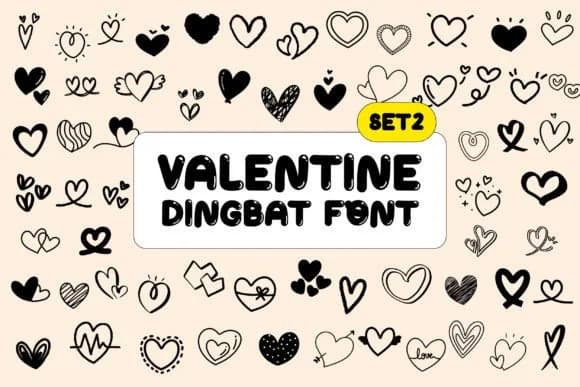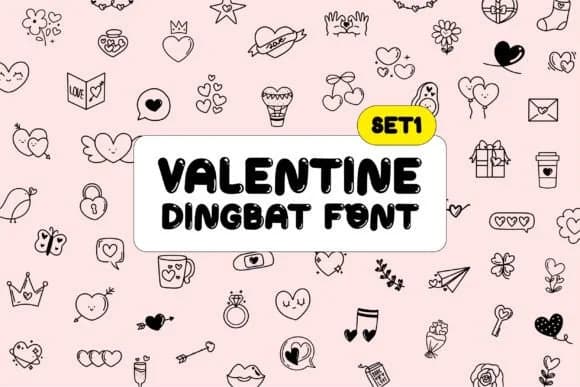
1 / 8About Valentine Doodle 3 Font
Valentine Doodle 3 by Issie_Studio is a hand-drawn dingbat collection filled with ornamental hearts, love-themed flourishes, and decorative flowers. It's built for anyone who needs authentic doodle textures without having to sketch them yourself, offering a full range of playful glyphs and graphic elements that feel genuinely personal rather than mass-produced.
This font collection really earns its place in greeting card designs, Valentine invitation suites, and the kind of custom Etsy shop graphics where buyers expect that handmade, artisan touch. It works beautifully for Procreate digital art projects where you want to add dimensional elements quickly, or scrapbooking layouts that need visual character. Personalized t-shirt designs and craft gift labels benefit from the authentic doodle style, while social media Valentine campaigns gain instant interest from the variety of heart and flourish options available. Sticker cutting projects especially shine with this aesthetic, as the designs cut cleanly at different scales.
The hand-drawn quality is what sets this collection apart, giving your work an authenticity that purely digital assets sometimes miss. These dingbats work across vector files, digital painting software, and physical craft materials, adapting naturally to each medium. Get Valentine Doodle 3 from Creative Fabrica and bring these charming elements into your designs.
Valentine Doodle 3 Font
by Issie_Studio